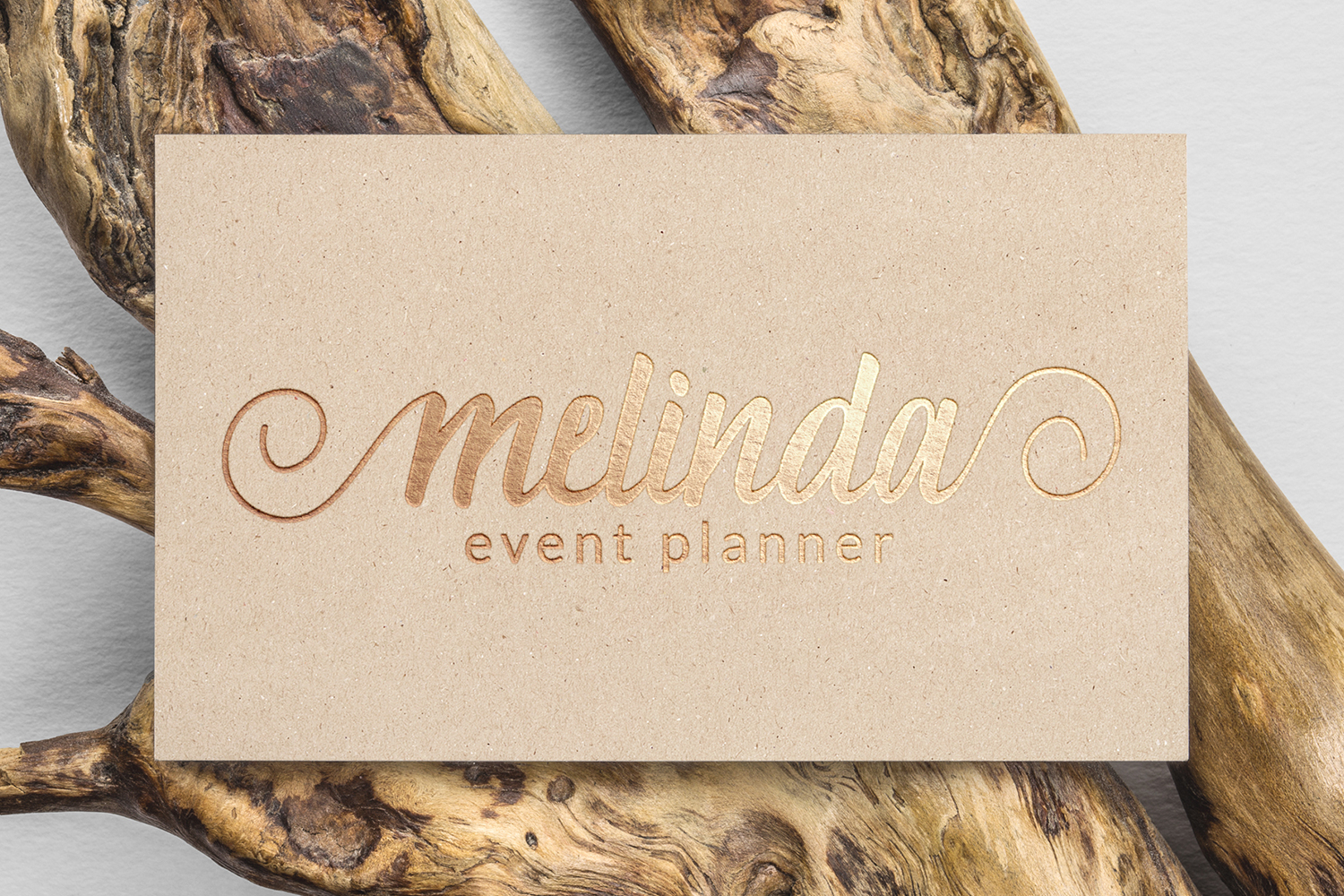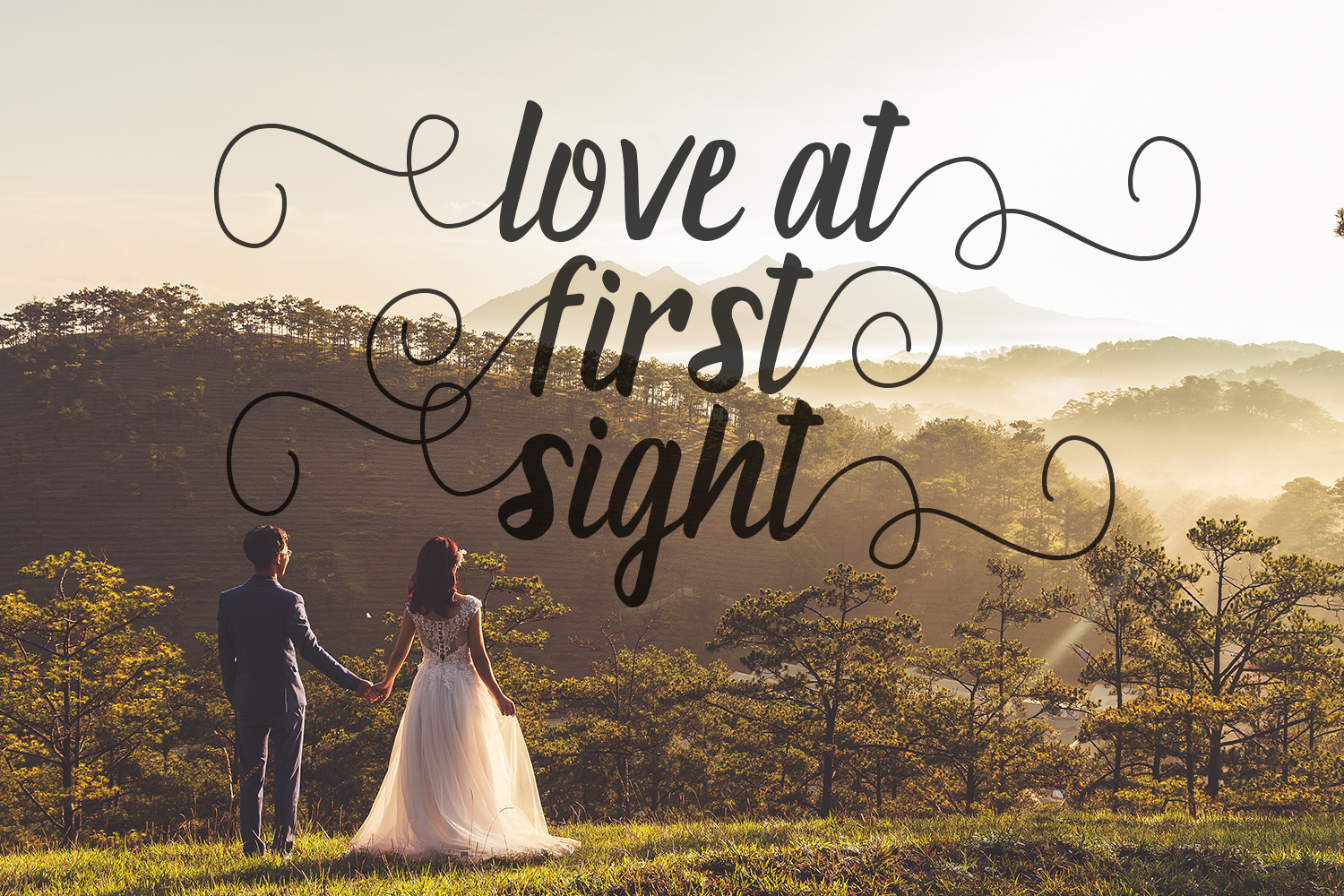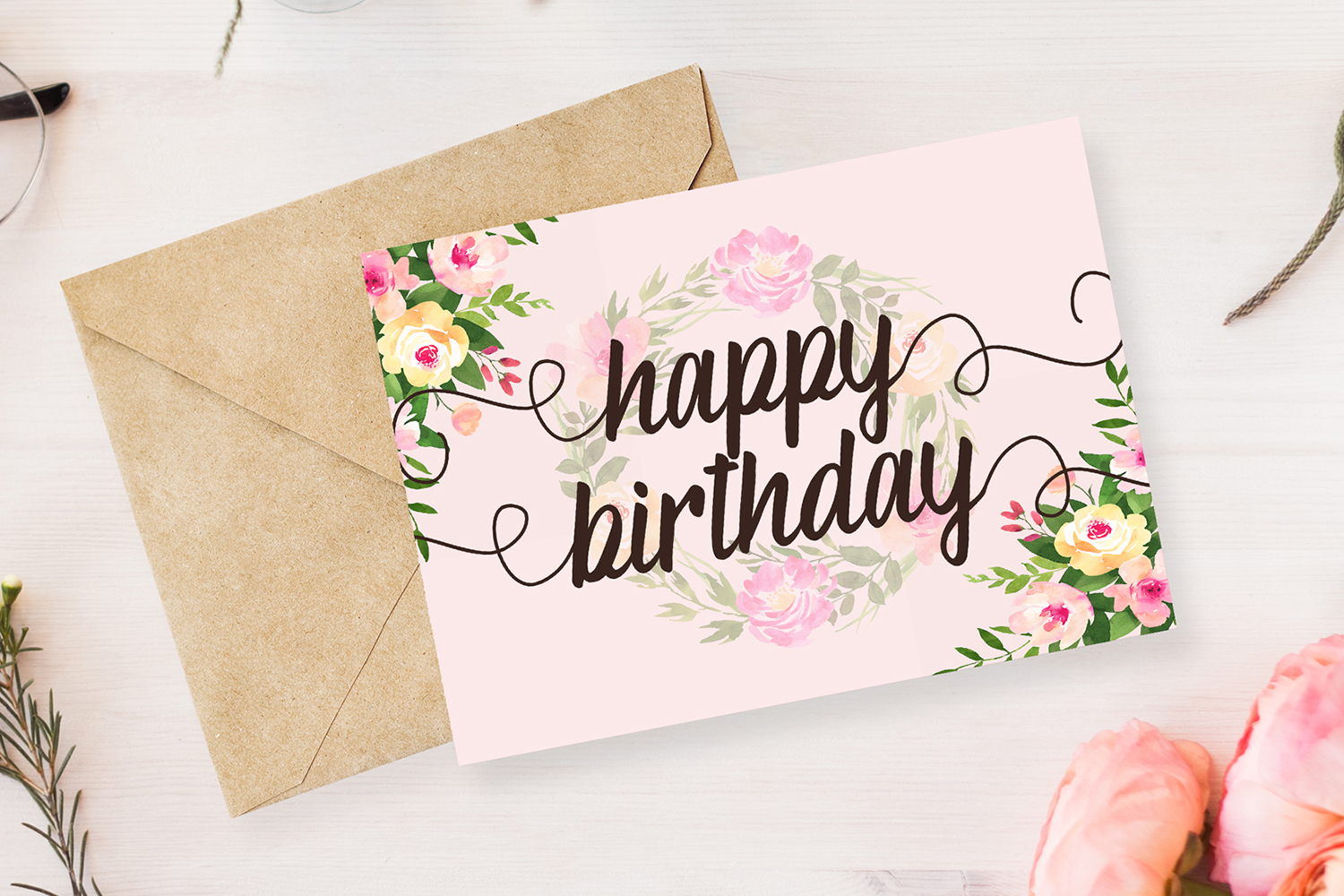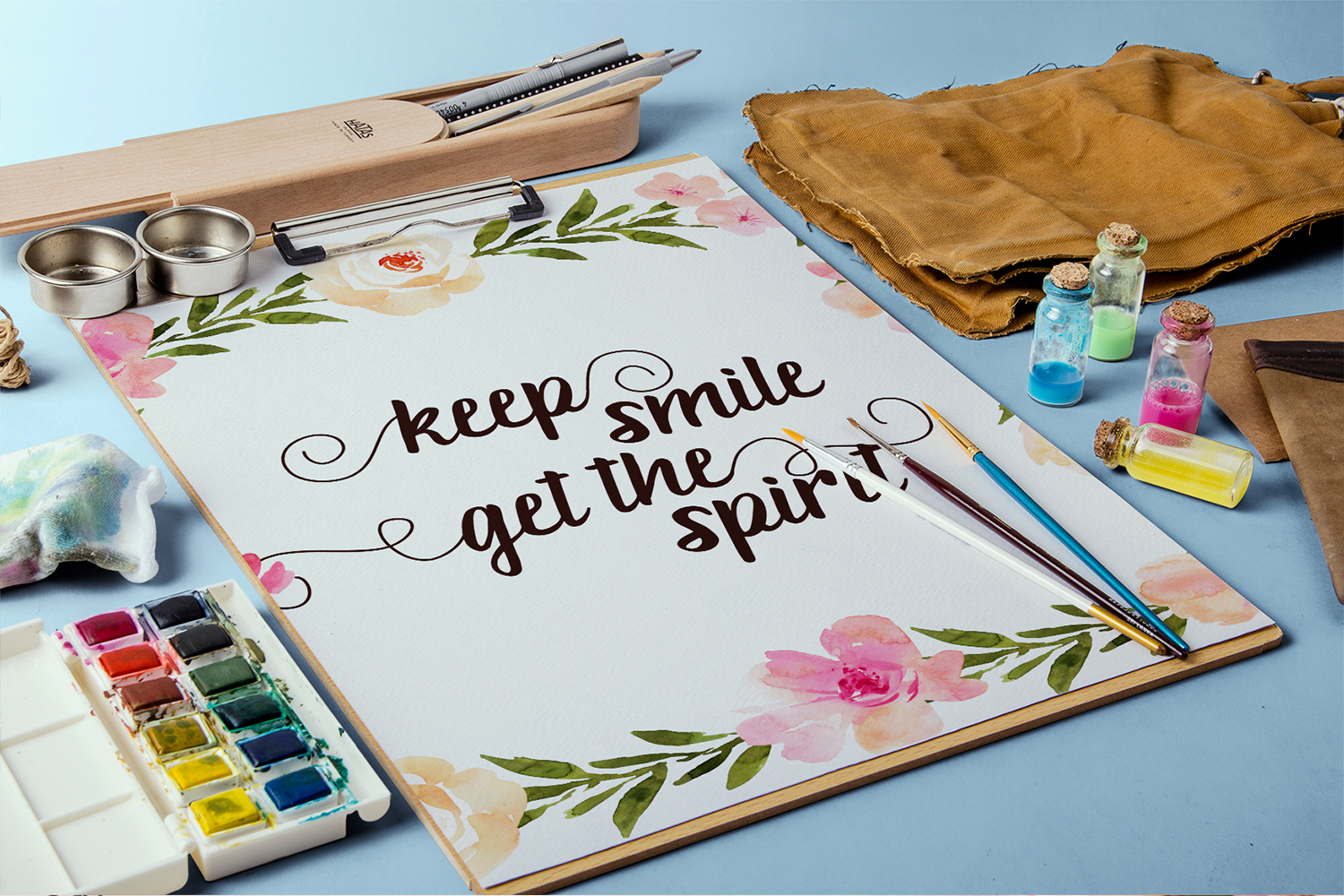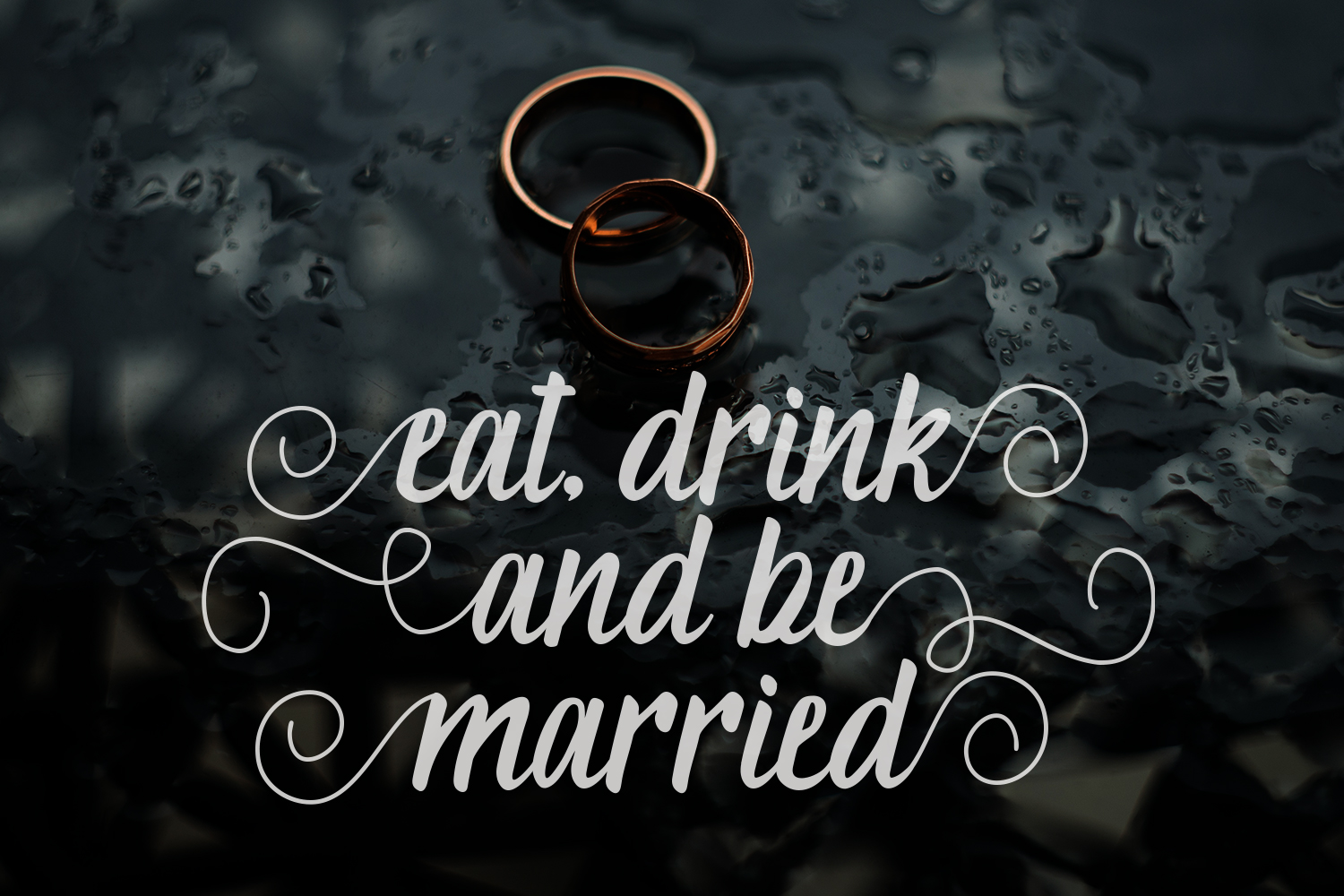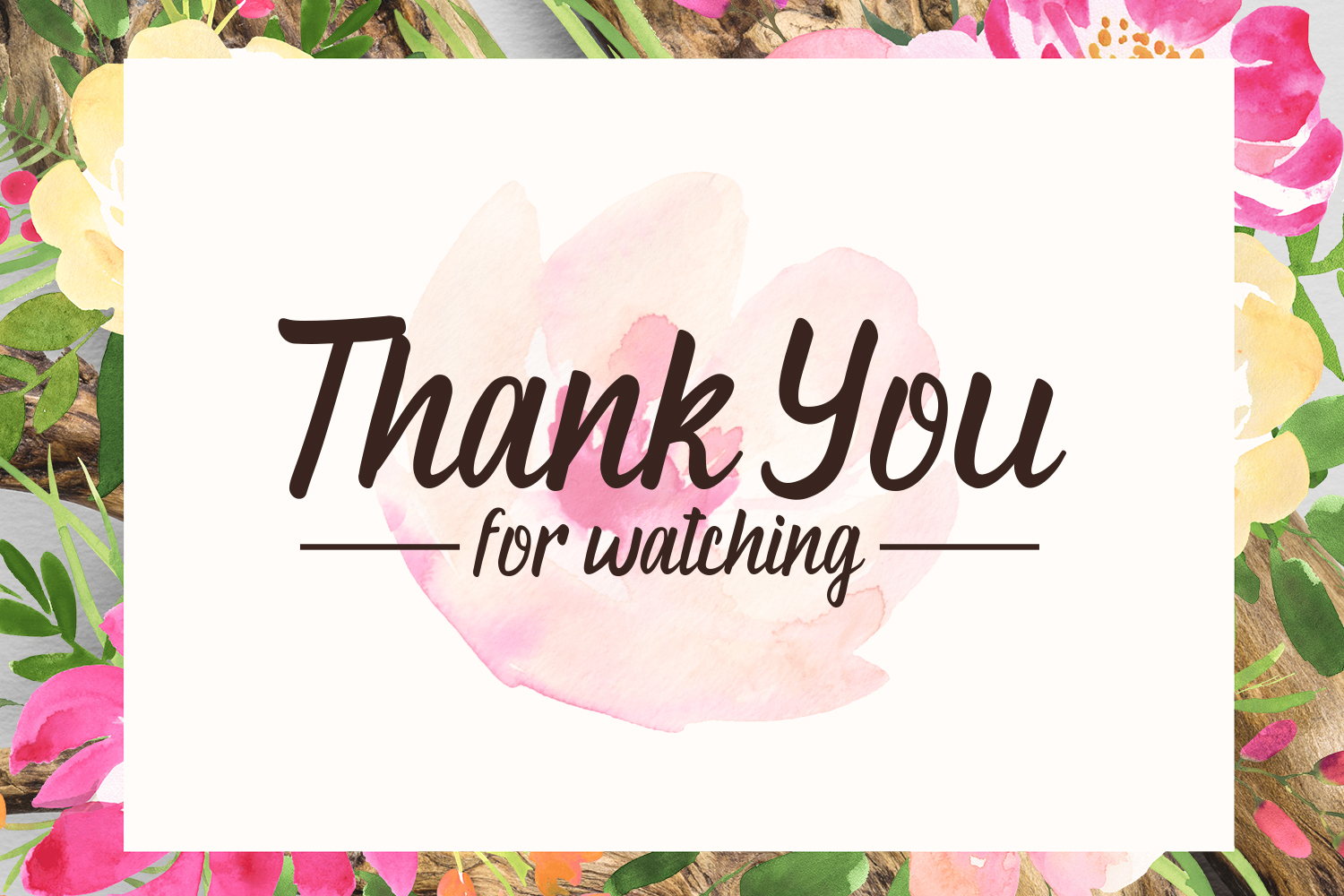
Aluna Font
About Aluna Font
Aluna is a simple and cutesy font crafted to give you beautiful design. This font is a stylish and youthful, giving you the option to make luxurious designs simply.